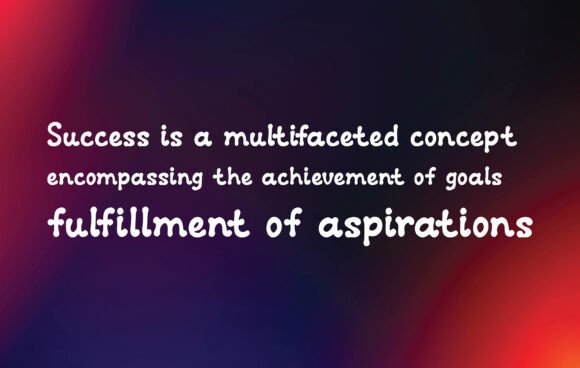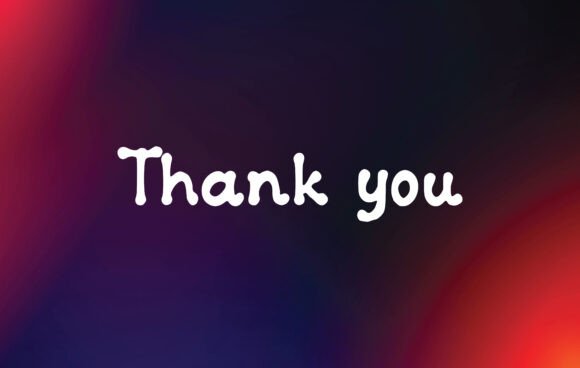
Introducing Adriel Font: Elevate Your Designs with a Lovely Handwritten Style
Are you on the hunt for a font that can take your creative projects to new heights? Look no further than Adriel Font, a stunning handwritten font that’s perfect for designers, crafters, and anyone looking to add a touch of elegance to their work. In this article, we’ll dive into the world of Adriel Font, exploring its features, benefits, and uses, as well as provide tips on how to make the most of this beautiful font.
What is Adriel Font?
Adriel Font is a lovely and beautiful handwritten font that’s designed to help you create stunning visual content. With its unique and elegant style, Adriel Font has the potential to take your creative ideas to the highest level. Whether you’re working on a logo, branding project, or quote, this font is the perfect choice for adding a touch of sophistication and style.
Key Features of Adriel Font
- Handwritten style: Adriel Font boasts a beautiful handwritten style that’s perfect for creating personal and emotive designs.
- Elegant and sophisticated: With its flowing lines and delicate curves, Adriel Font adds a touch of elegance and sophistication to any design.
- Versatile: Adriel Font is perfect for a wide range of design projects, from logos and branding to quotes and social media graphics.
- Easy to read: Despite its elegant style, Adriel Font is easy to read, making it perfect for body text and captions.
Benefits of Using Adriel Font
So why choose Adriel Font for your next design project? Here are just a few benefits of using this beautiful font:
- Stand out from the crowd: With Adriel Font, you can create designs that stand out from the crowd and grab attention.
- Convey emotion and personality: The handwritten style of Adriel Font allows you to convey emotion and personality in your designs, making them more relatable and engaging.
- Perfect for branding: Adriel Font is ideal for branding projects, as it helps to create a unique and recognizable visual identity.
Uses of Adriel Font
Adriel Font is perfect for a wide range of design projects, including:
- Logos and branding: Create a stunning logo or brand identity with Adriel Font.
- Quotes and social media graphics: Add a touch of elegance to your quotes and social media graphics with Adriel Font.
- Invitations and stationery: Use Adriel Font to create beautiful invitations, stationery, and other paper goods.
- Web design: Adriel Font is perfect for web design projects, including website headers, titles, and body text.
Tips for Using Adriel Font
Here are a few tips for getting the most out of Adriel Font:
- Experiment with different sizes and colors: Adriel Font looks great in a variety of sizes and colors, so don’t be afraid to experiment and find the perfect combination for your design.
- Pair with other fonts: Adriel Font pairs well with other fonts, so try combining it with a bold font for headings or a clean font for body text.
- Use it consistently: To create a cohesive brand identity, use Adriel Font consistently across all your design projects.
In conclusion, Adriel Font is a beautiful and versatile handwritten font that’s perfect for designers, crafters, and anyone looking to add a touch of elegance to their work. With its unique style, elegant curves, and easy-to-read design, Adriel Font is the perfect choice for a wide range of design projects. Whether you’re working on a logo, branding project, or quote, Adriel Font is sure to take your creative ideas to the highest level.